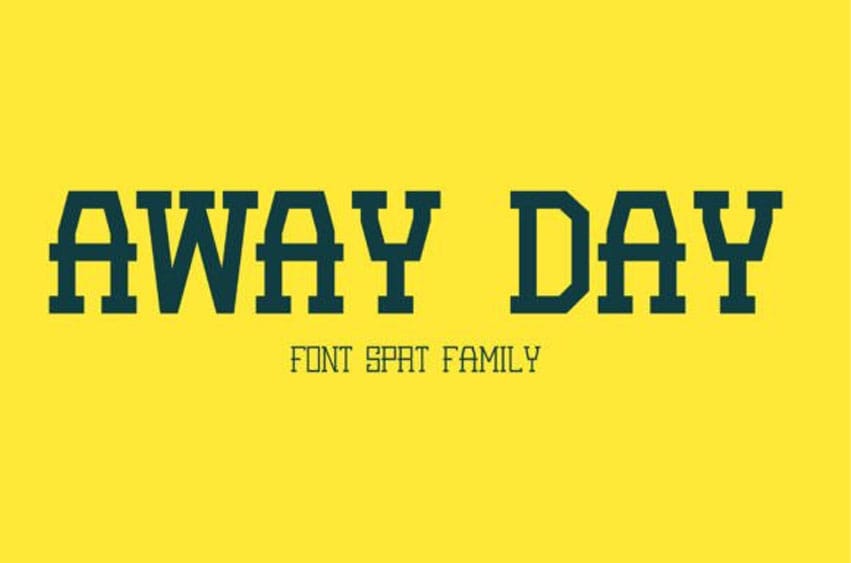
Away Day Font Inspired by the love for sports, Away Day Font Family is a creative font.
You can use this font for graphic design, sports branding, sports shirts, quotes, design titles, sports-themed movies, to television programs. You can also add this font for key chains, stickers, or greeting cards.